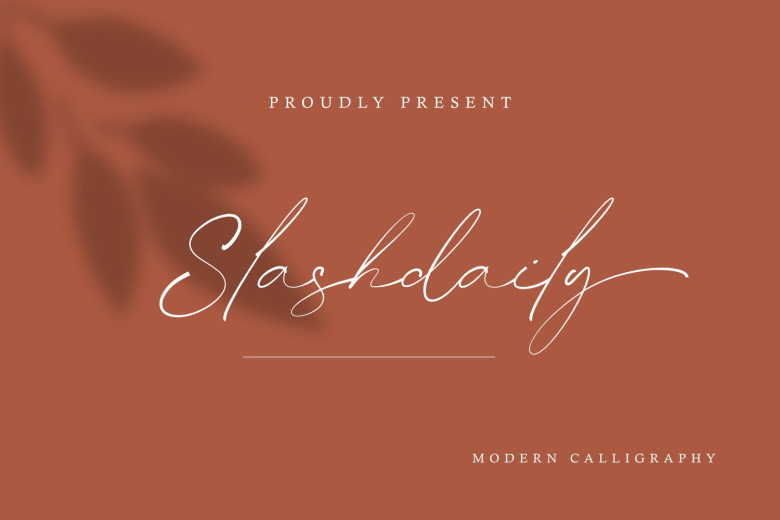
Slashdaily is a script handwriting font that is elegant and thin. Slashdaily: This font is ideal for branding projects, logo, wedding designs, social media posts, advertisements, product packaging, product designs, label, photography, watermark, invitation, stationery, and any projects that require a human touch.
Slashdaily Handwritten Script Font